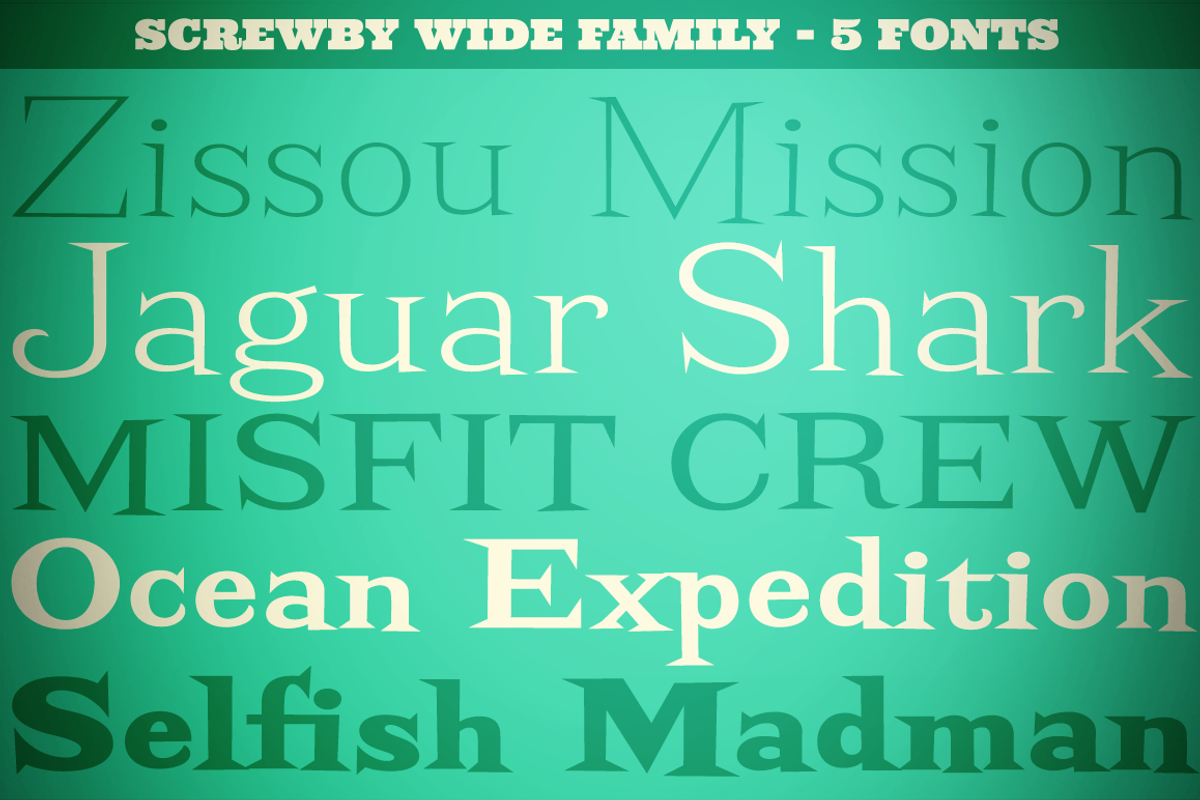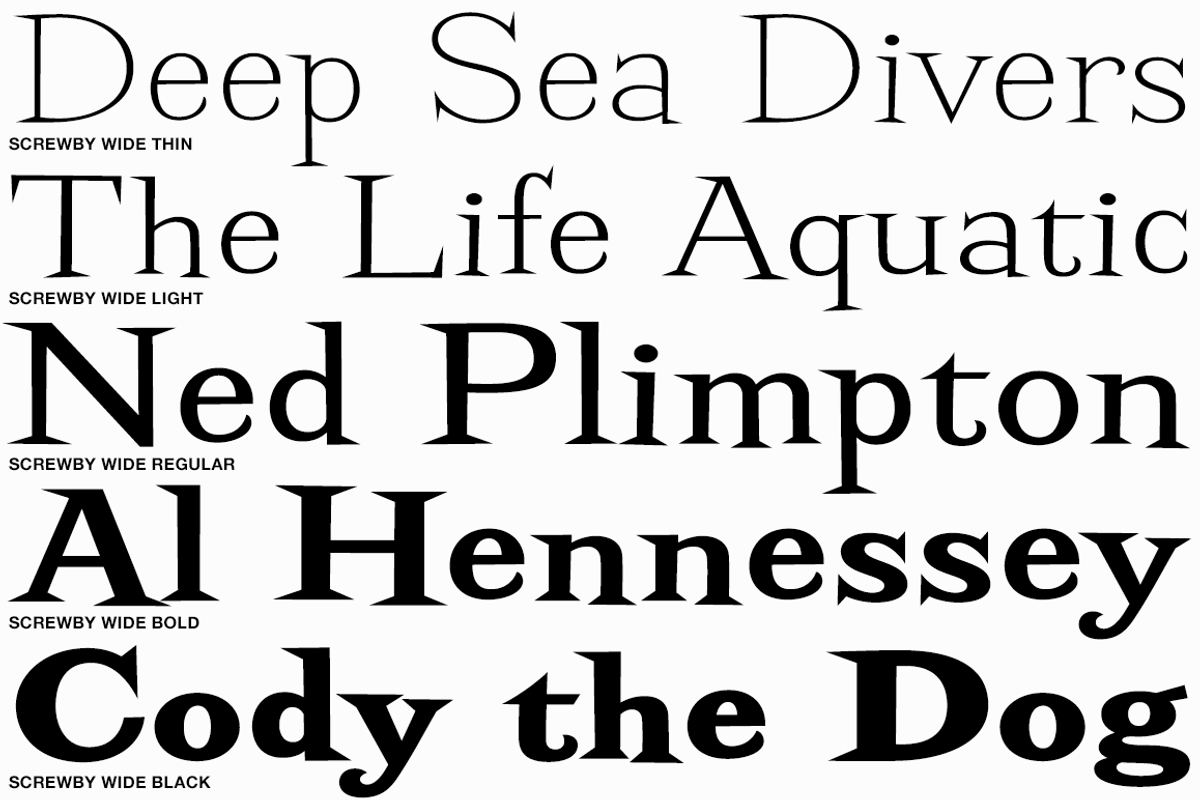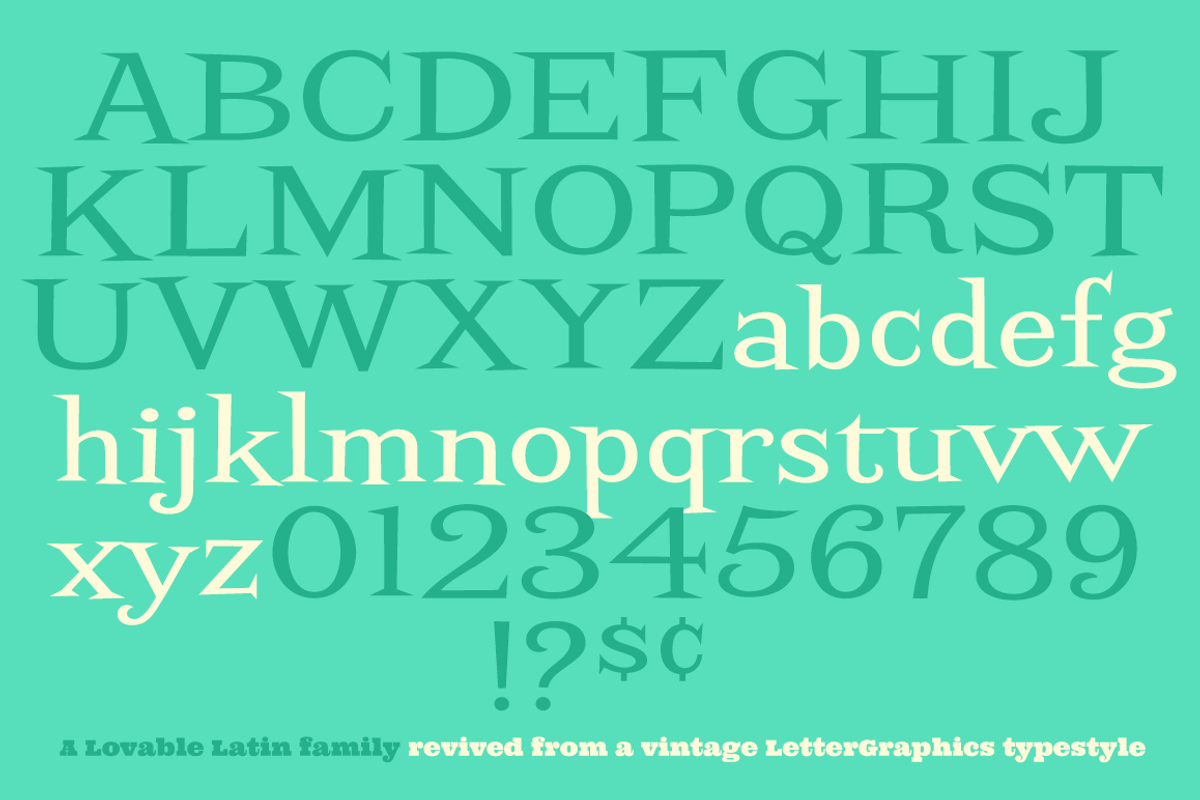
Screwby Wide Family
A slightly offbeat latin typestyle, Screwby started as a digitization of a film typeface called Surf by Lettergraphics. From there, this wonderful typeface was expanded into a giant family of fun widths and weights to play with: from spindly thin and light weights, to chunky bold and blacks. An all-around fantastic treat!